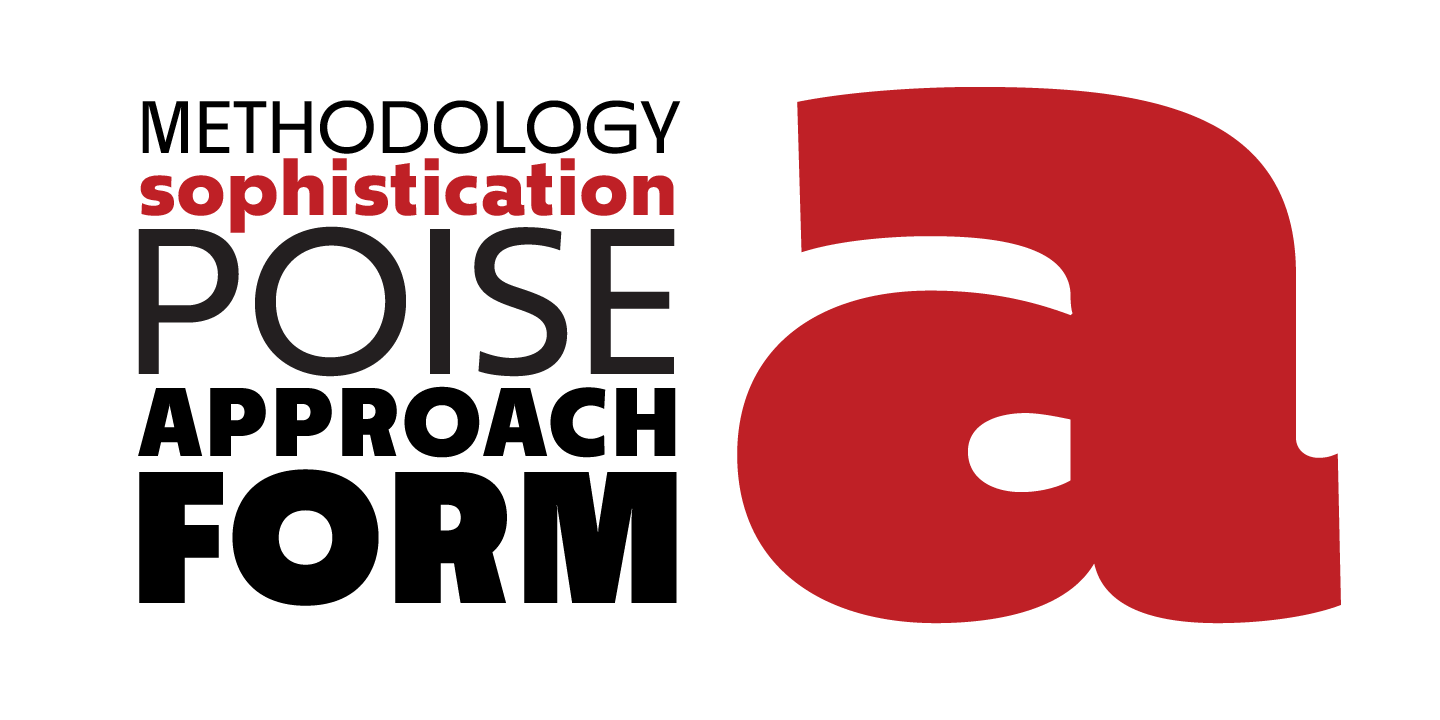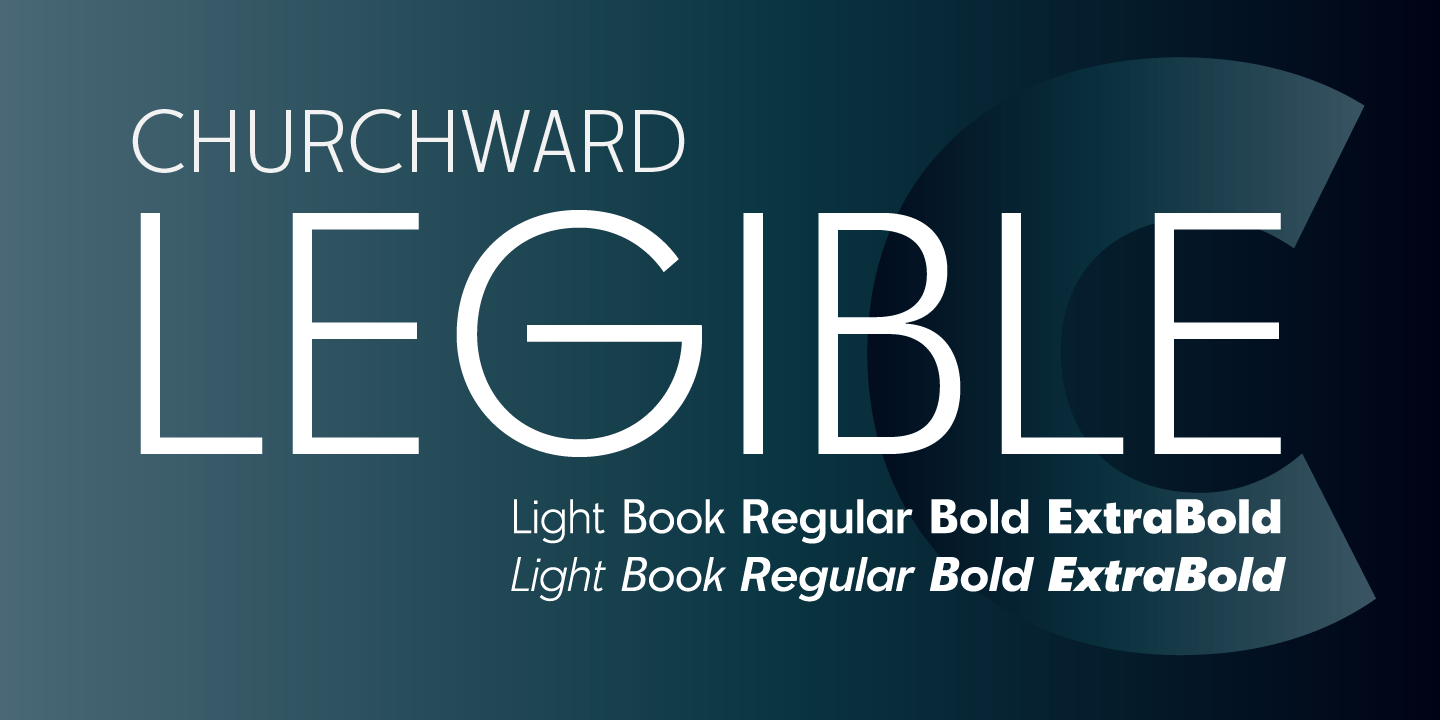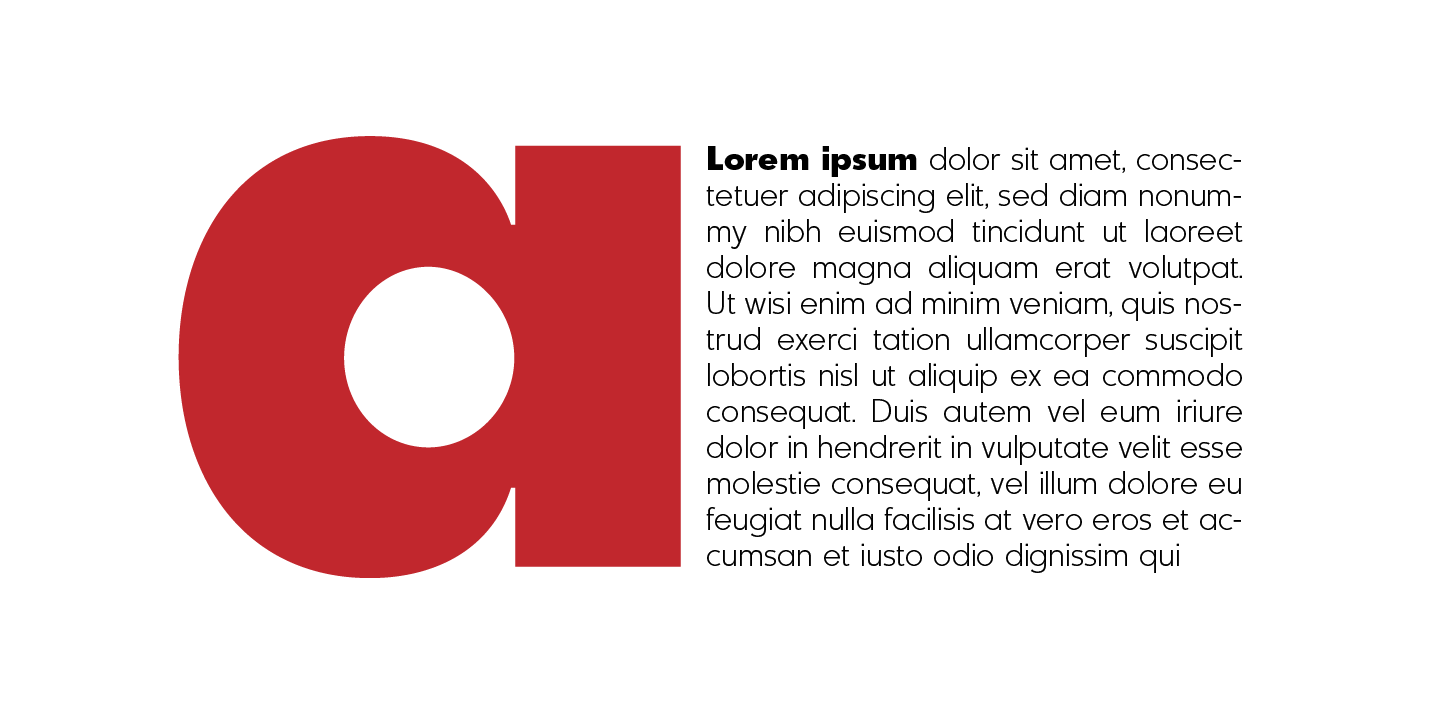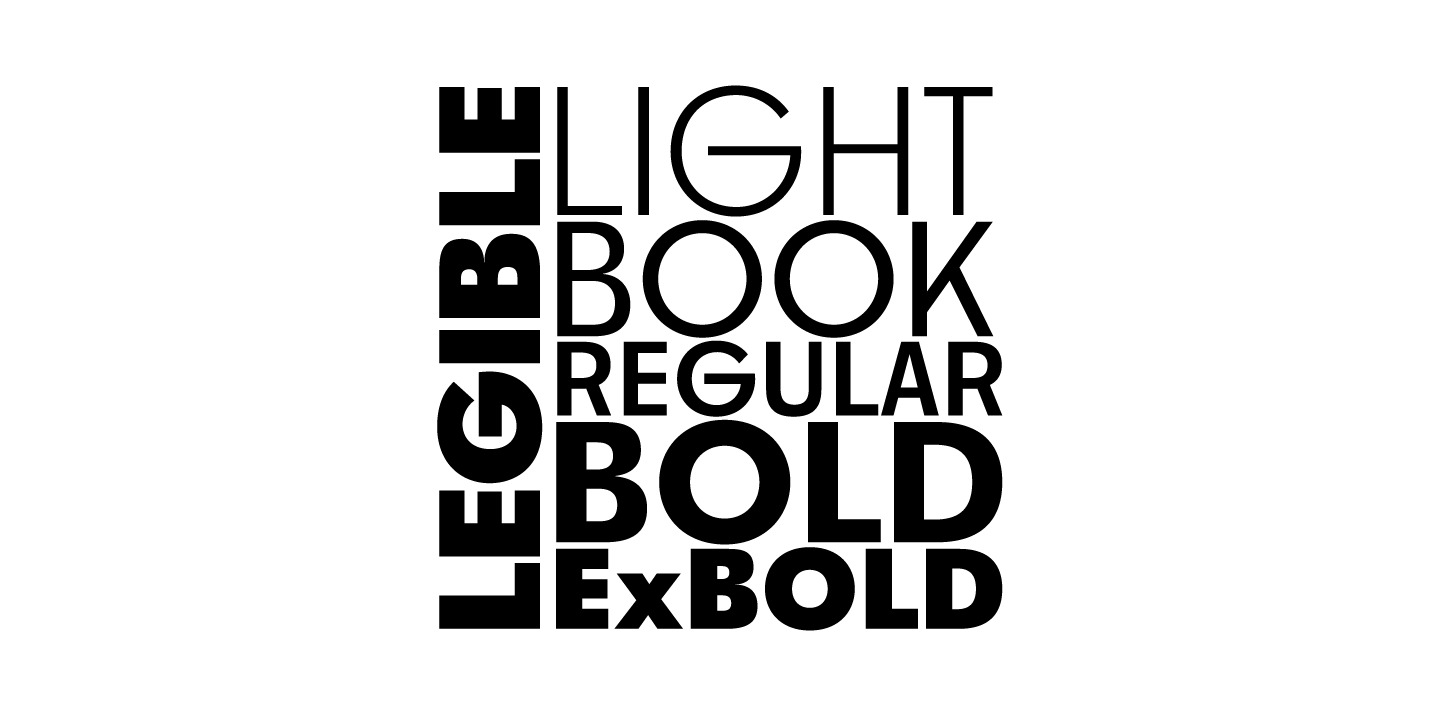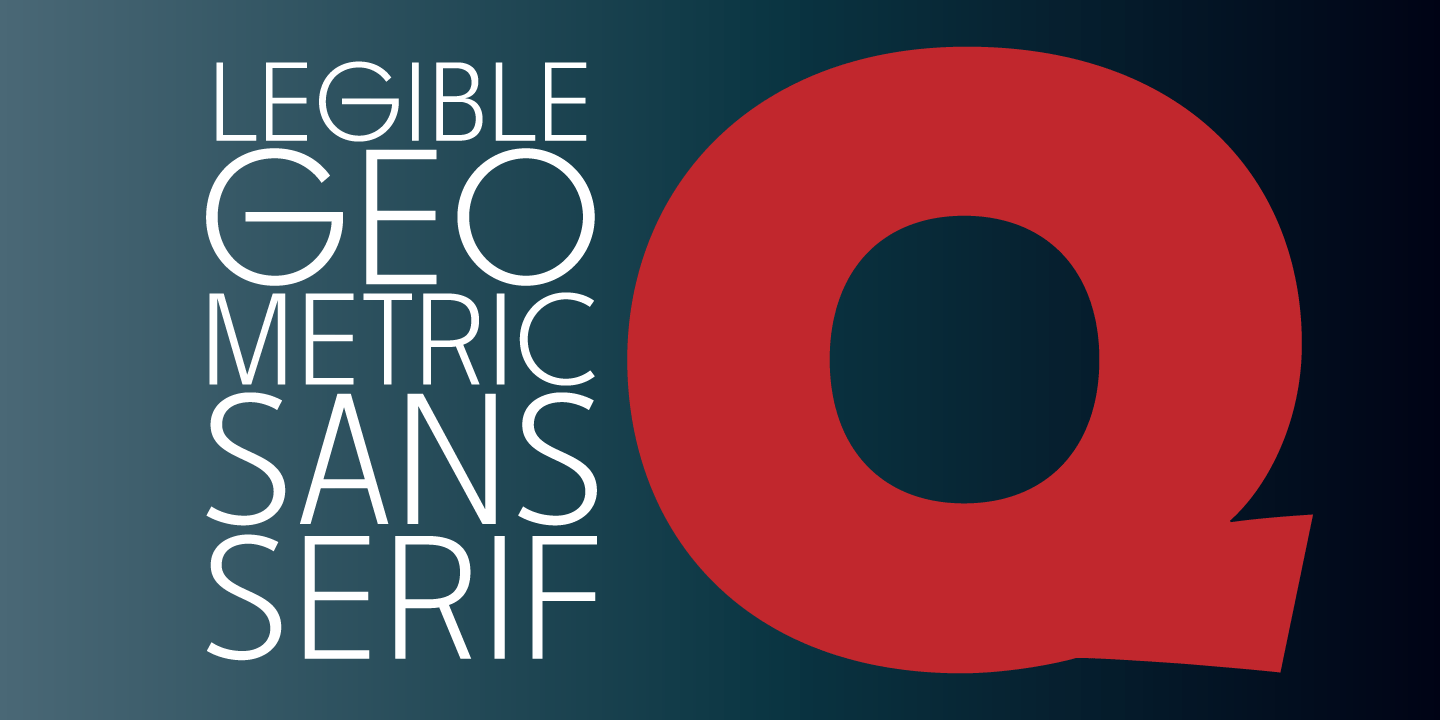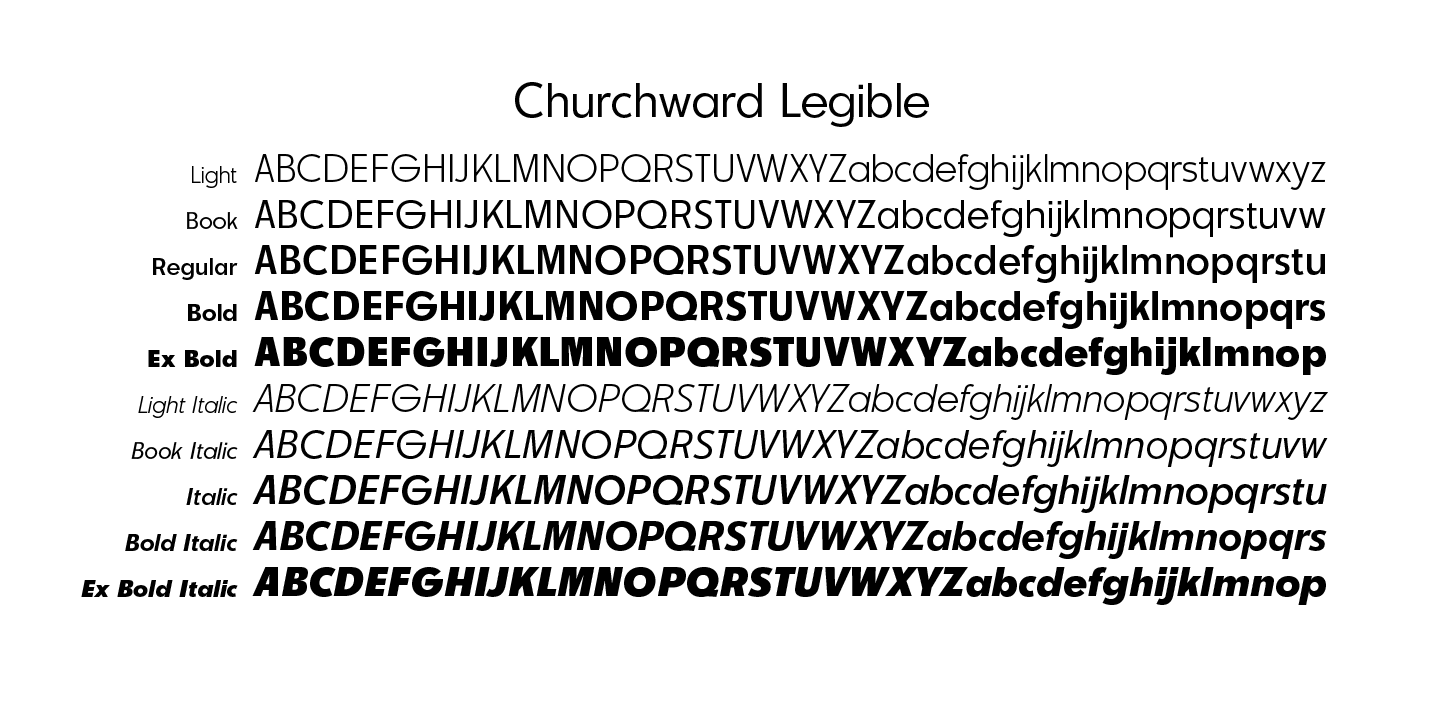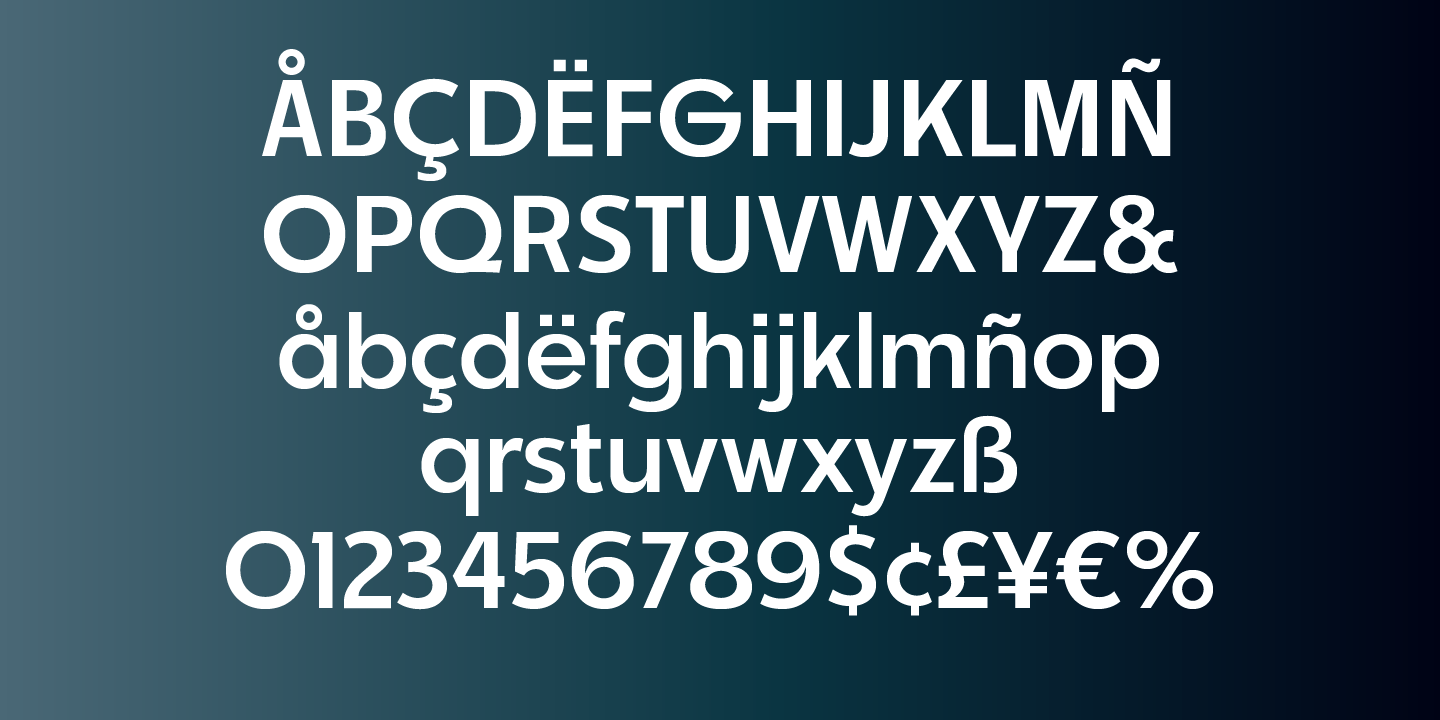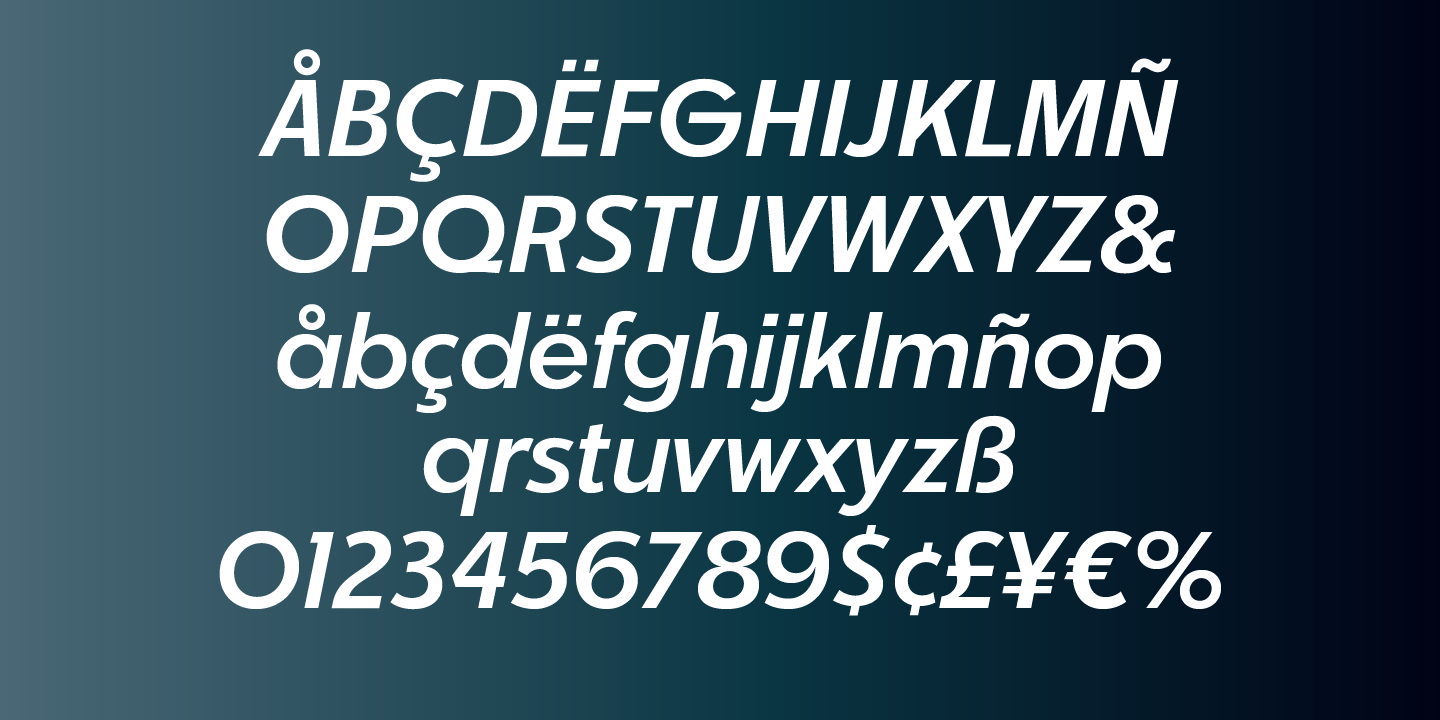
Churchward Legible
Churchward Legible is an extensive typeface family designed in 2002 by Joseph Churchward. A geometric sans serif, it is, as it's name boasts, highly legible and readable on screen as well as in print. The family includes five weights from Light to Extra Bold, with companion italics. Each font supports an extended character set that covers many of the western European languages.